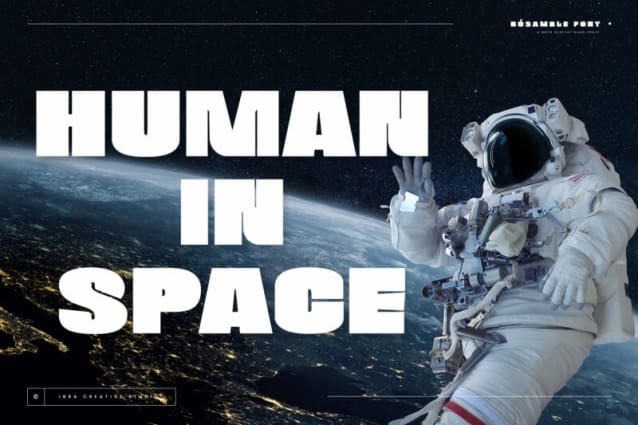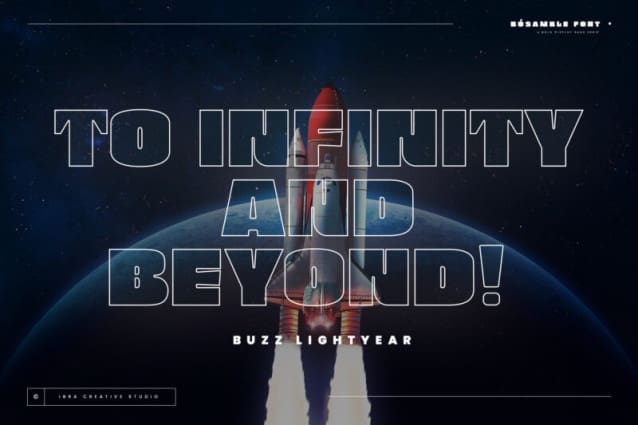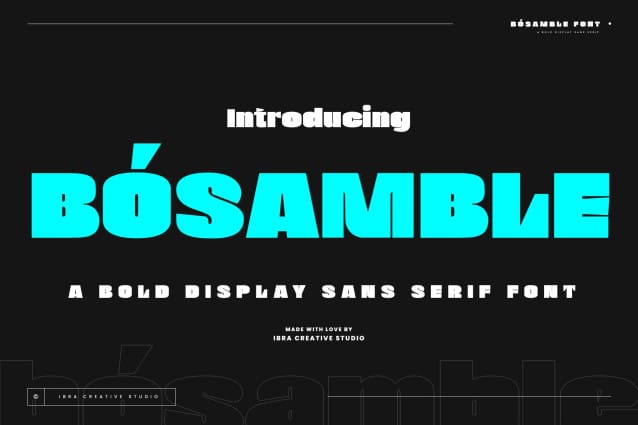
Bósamble Font
Bósamble Font is a striking and contemporary Bold Display Sans Serif typeface that effortlessly commands attention with its bold, geometric letterforms. Its distinctive design features a perfect balance between thick and thin strokes, creating a sense of power and modernity. Bósamble’s uppercase characters exude a sense of confidence and boldness, making it an excellent choice for headlines, posters, and branding projects where a strong and impactful typographic statement is desired. Its clean lines and clear readability make it a versatile choice for a wide range of design applications, allowing Bósamble Font to stand out as a compelling choice for those seeking a bold and assertive typeface.